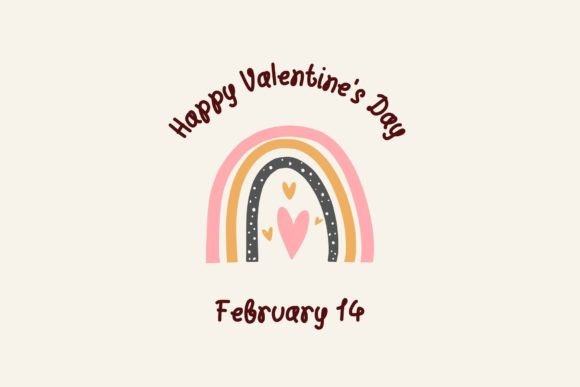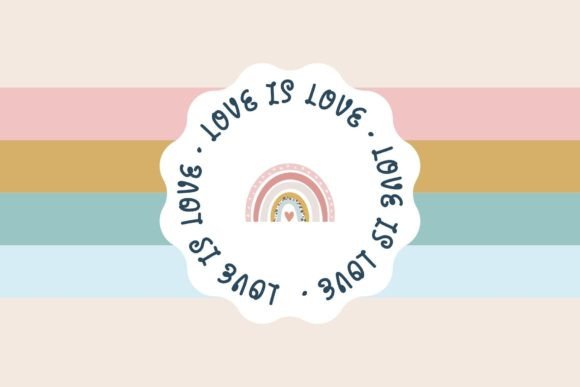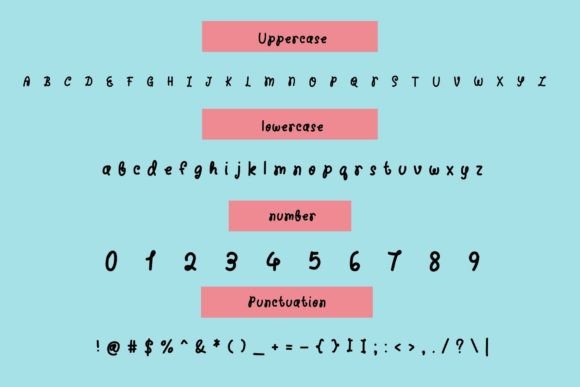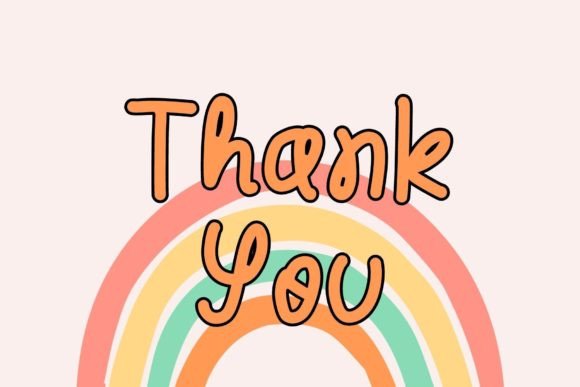
Introducing Cutie Font: The Ultimate Cute Handwritten Font for Your Creative Projects
Are you a designer, crafter, or DIY enthusiast looking for a font that embodies playfulness and authenticity? Look no further than Cutie Font, a delightful handwritten font that’s perfect for a wide range of creative projects. In this article, we’ll explore the features and benefits of Cutie Font, and show you how to make the most of this versatile and charming font.
What is Cutie Font?
Cutie Font is a carefully crafted handwritten font that exudes warmth, friendliness, and approachability. Its playful and authentic feel makes it an ideal choice for designers and crafters who want to add a personal touch to their work. Whether you’re creating blog posts, logos, branding materials, ads, invitations, greeting cards, planners, photo albums, decorations, or anything in between, Cutie Font is the perfect companion.
Key Features of Cutie Font
- Playful and Authentic: Cutie Font is designed to capture the essence of handwritten writing, with a playful and authentic feel that’s sure to engage your audience.
- Versatile: Cutie Font is suitable for a wide range of creative projects, from digital designs to print materials.
- Easy to Read: The font is clear, legible, and easy to read, making it perfect for body text, headings, and titles.
- High-Quality: Cutie Font is a high-quality font that’s designed to deliver exceptional results in any design or craft project.
Benefits of Using Cutie Font
So why choose Cutie Font for your creative projects? Here are just a few benefits you can expect:
- Add a Personal Touch: Cutie Font allows you to add a personal touch to your designs, making them more relatable and engaging.
- Stand Out from the Crowd: With its unique and playful feel, Cutie Font can help your designs stand out from the crowd and grab attention.
- Perfect for Branding: Cutie Font is an excellent choice for branding materials, such as logos, business cards, and letterheads, as it conveys a friendly and approachable tone.
- Easy to Pair: Cutie Font pairs well with a wide range of other fonts, making it easy to create stunning typography combinations.
How to Use Cutie Font in Your Designs
Using Cutie Font in your designs is easy! Here are a few tips to get you started:
- Pair with Other Fonts: Experiment with pairing Cutie Font with other fonts to create stunning typography combinations.
- Use for Headings and Titles: Cutie Font is perfect for headings and titles, where its playful feel can really shine.
- Add to Digital Designs: Use Cutie Font in digital designs, such as blog posts, social media graphics, and email newsletters.
- Print Materials: Cutie Font is also suitable for print materials, such as invitations, greeting cards, and planners.
Tips and Tricks for Working with Cutie Font
Here are a few more tips and tricks to help you get the most out of Cutie Font:
- Experiment with Colors: Cutie Font looks great in a wide range of colors, so don’t be afraid to experiment and find the perfect hue for your design.
- Play with Size: Cutie Font can be used at a variety of sizes, from small body text to large headings.
- Add Texture and Patterns: Consider adding texture and patterns to your design to give it an extra layer of interest and depth.
Cutie Font is a versatile and charming handwritten font that’s perfect for designers, crafters, and DIY enthusiasts. With its playful and authentic feel, it’s an ideal choice for a wide range of creative projects. Whether you’re looking to add a personal touch to your designs, stand out from the crowd, or create stunning typography combinations, Cutie Font is the perfect companion. So why wait? Add Cutie Font to your designs today and enjoy the results!